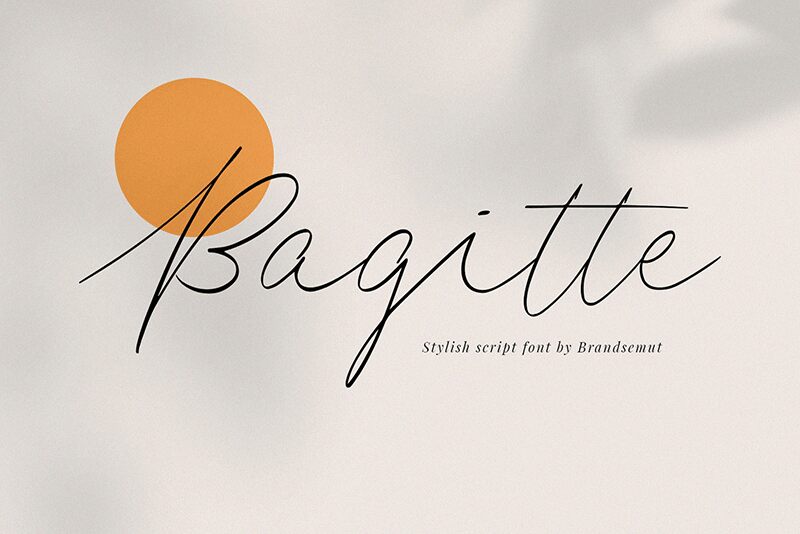
Bagitte is the perfect handwritten font for projects that require a delicate touch. With its ultra-light weight, it exudes grace and elegance, making it ideal for wedding invitations, greeting cards, and other formal correspondence. This font is also versatile enough to be used in digital designs such as social media graphics, website headers, and e-book covers. Bagitte's unique style adds a personal touch to any project, making it stand out from the crowd. Whether you're looking to create a sophisticated look or add a whimsical flair to your design, this semi-bold typeface is sure to impress.
Bagitte